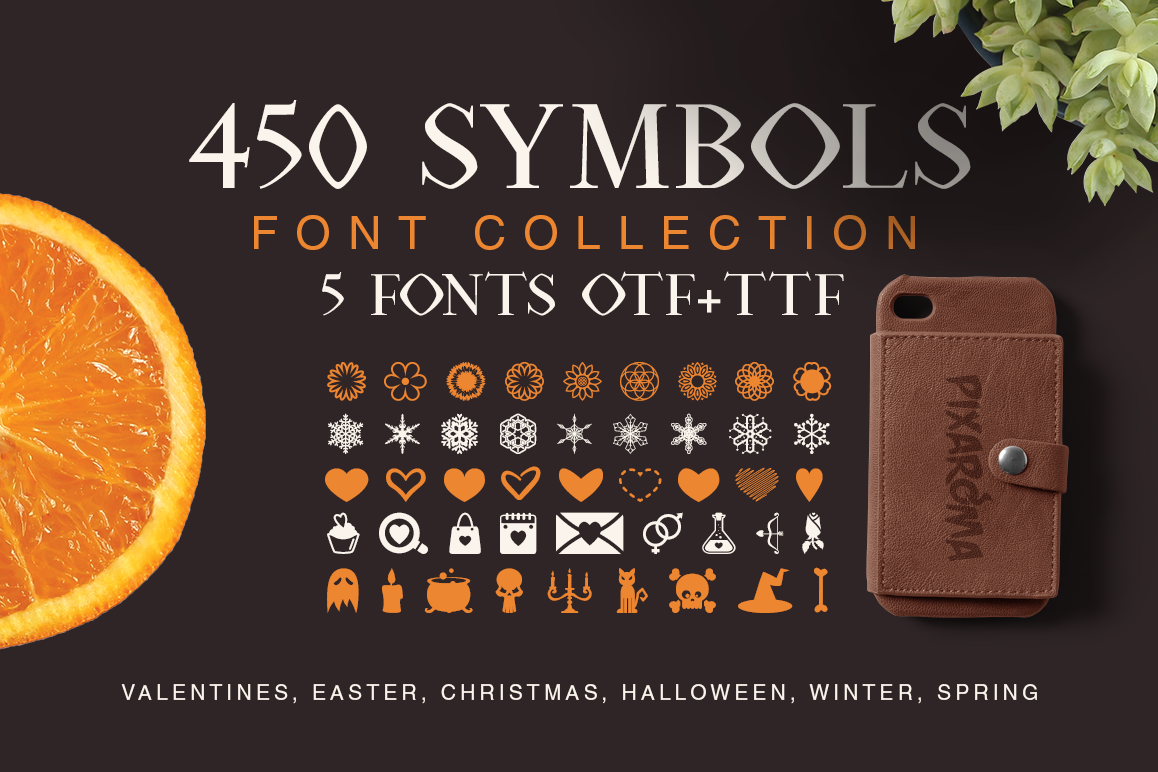
Symbols Font Collection - 450 Elements
Symbols Font Collection - 450 Elements You get 5 fonts: - Flowerdinki : contain 90 flower symbols -…
FlowerdinkiSymbols
HalloweenbolsSymbols
HeartsymoSymbols
HolidaikiSymbols
SnowflikiSymbols